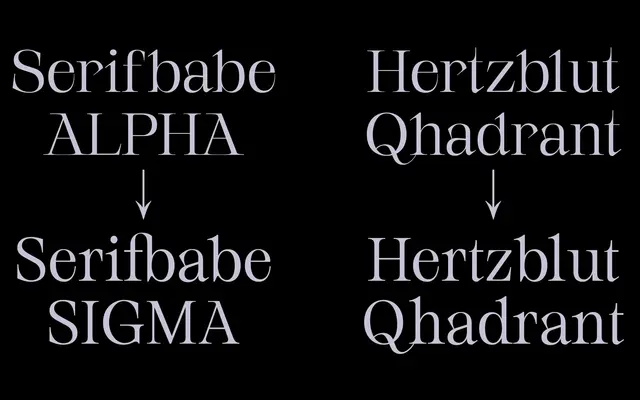
Serifbabe
A three-weight display serif by Charlotte Rohde, first released in 2020 and developed across two distinct phases with a deliberately eccentric, personal character.
Serifbabe began in 2020 with an Alpha and Alpha Italic before a 2024 update introduced the Sigma weight, described by the designer as a further maturation of the typeface's personality. Each version is framed as a stage of growth, with the italic positioned as more considered and specific in tone. The family suits editorial and identity work where an opinionated, feminine serif voice is called for.
A display serif with an eccentric, expressive character; the designer's own framing as an alter ego and the exaggerated personality across three distinct weights confirms a display rather than text orientation.